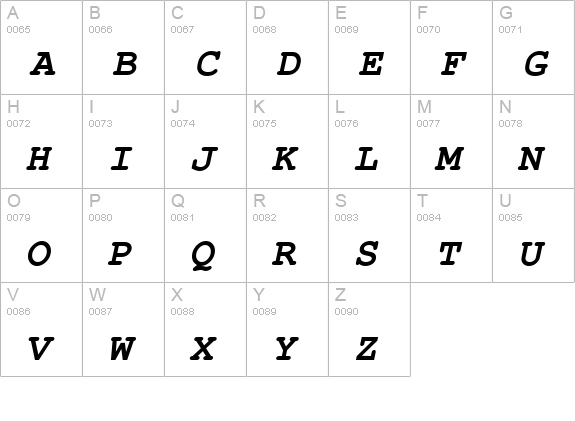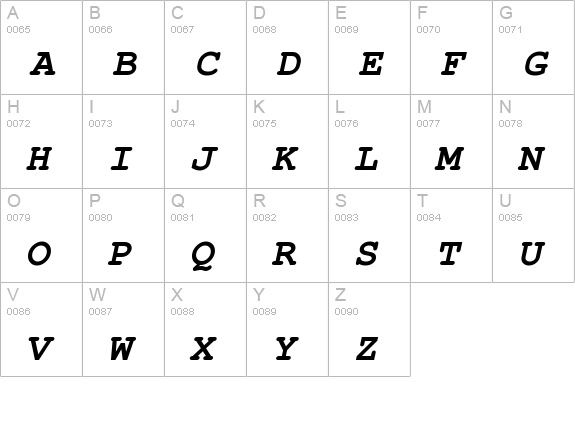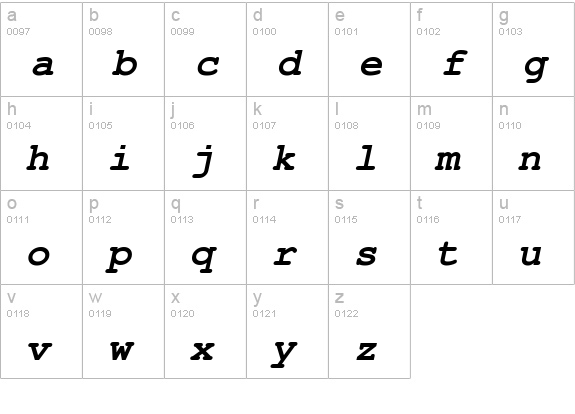
Courier-PS-BoldItalic Font Details
Courier-PS-BoldItalic is a sophisticated and bold font style that exudes professionalism and elegance. With its strong and italicized appearance, this font is perfect for adding emphasis and impact to any design project. The Courier-PS-BoldItalic font strikes the perfect balance between classic and contemporary, making it a versatile choice for a wide range of applications. What sets Courier-PS-BoldItalic apart is not only its striking design but also the fact that it is available for free download at FontsMarket.com. This means that you can access this high-quality font without any cost, making it a valuable addition to your font collection. Whether you are working on a branding project, creating marketing materials, or designing a website, Courier-PS-BoldItalic is sure to make a statement and leave a lasting impression. Download Courier-PS-BoldItalic for free today at FontsMarket.com and elevate your designs with this impressive and stylish font choice.